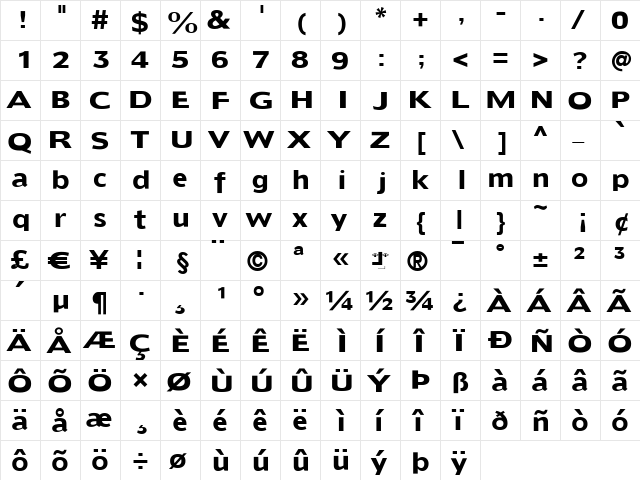
DoradoHeadline Regular
Design Context for DoradoHeadline Typeface
DoradoHeadline offers clean, dependable letterforms without strong stylistic allegiance, making it a practical choice for designers who need flexibility.
Pro Tip: Use DoradoHeadline in both headline and body roles to test its range before committing to a single application.